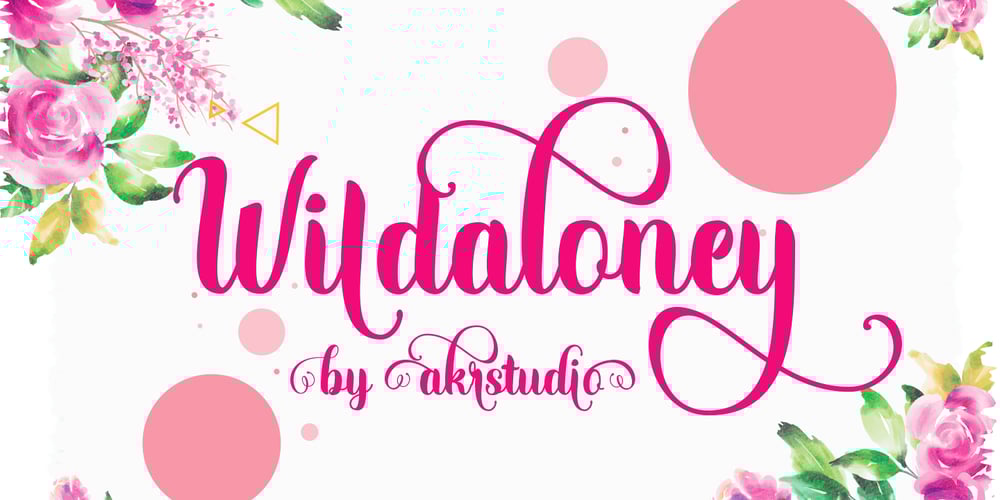
Wildaloney
Wildaloney font
Wildaloney Font Family was designed by Ak Mal and published by Akrtype Studio. Wildaloney contains 2 styles and family package options. The Wildaloney script is a beautiful, classic calligraphic font in regular and italic, which will add a sweet, elegant, and perfect feel to your design. It’s great for logo projects, wedding invitation cards, branding, home designs, product packaging, and every other design that needs an elegant typeface.This script has more than 400+ glyphs in each style, has two uppercase heights and many alternative lowercase characters, as well as a large selection of stylish devices, allowing you to make your design truly unique.To activate the OpenType Stylistic alternative, you need a program that supports OpenType features such as Adobe Illustrator CS, Adobe Indesign & CorelDraw X6-X7, Microsoft Word 2010 or newer versions.